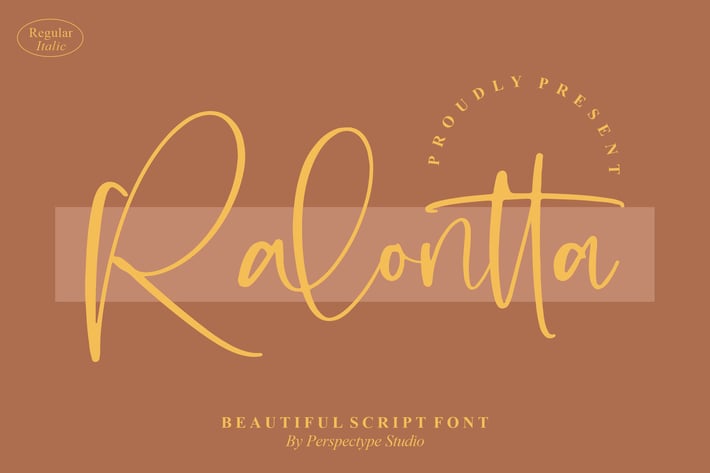
Ralontta Script Font
Ralontta Script is a graceful, hand-lettered script with long, flowing strokes and a gentle contrast that feels both modern and romantic. Clean curves, tasteful swashes, and carefully tuned spacing make it shine in premium branding, invitations, and social graphics. Comes in Regular and Italic styles for flexible, elegant typography.
+ Uppercase & lowercase A–Z
+ Numerals & punctuation
+ Stylistic alternates & ligatures
+ Smooth kerning and balanced spacing
+ Basic multilingual support (Latin)
Design by Perspectype Studio